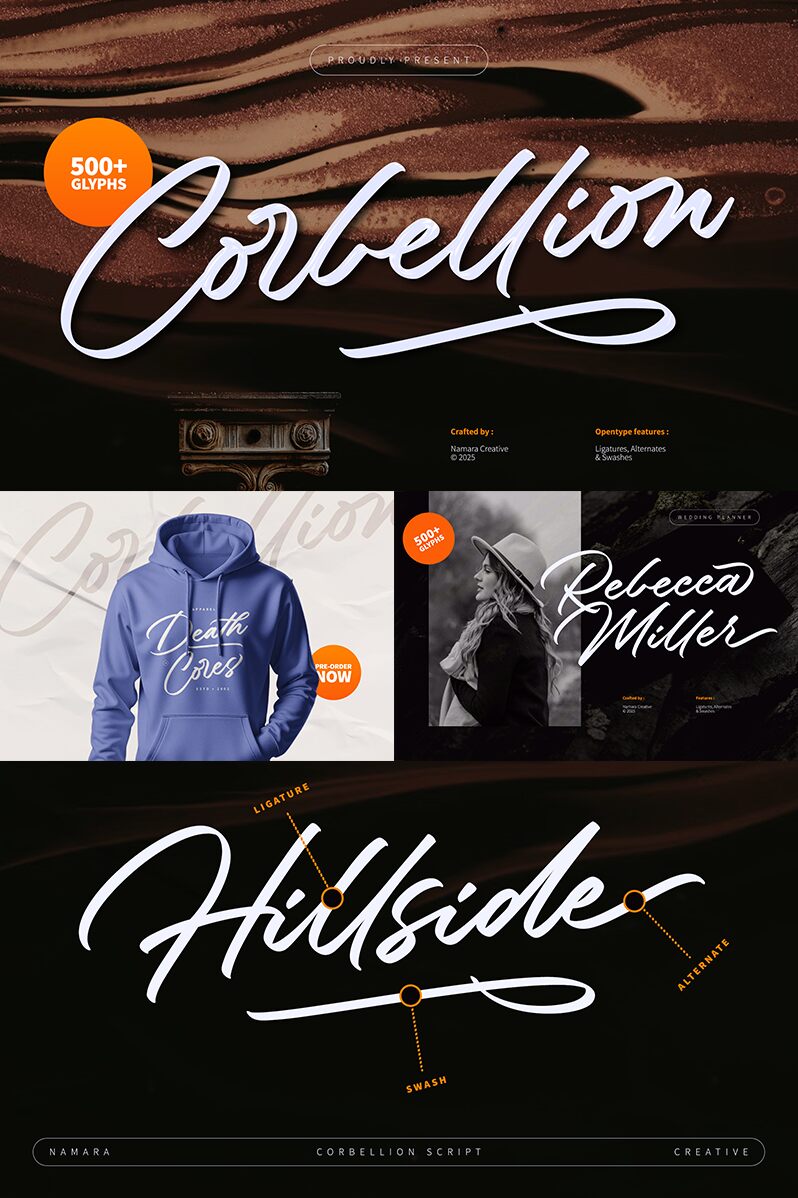
Corbellion font designed by Namara Creative is a free handwritten font. This signature style typeface has a flowing, expressive visual which appears both modern and stylish. With an energetic yet elegant structure, this versatile typeface can add a lot of character to many of your projects.
Corbellion font can be used to create artistic headings and titles for any piece of print or digital design. It works well when used in branding, packaging, advertisements, and products. Use it for business cards, magazines, invitation cards, and any other typography or lettering purposes.
This bold and flowing signature script font skillfully combines modern calligraphy with timeless elegance. With over 500 meticulously crafted glyphs, Corbellion provides a versatile typographic experience enhanced by extensive OpenType features, including ligatures, alternates, and swashes. It is perfect for designers seeking expressive, hand-lettered aesthetics. Enjoy the beauty of this free font and elevate your creative projects with its unique charm.